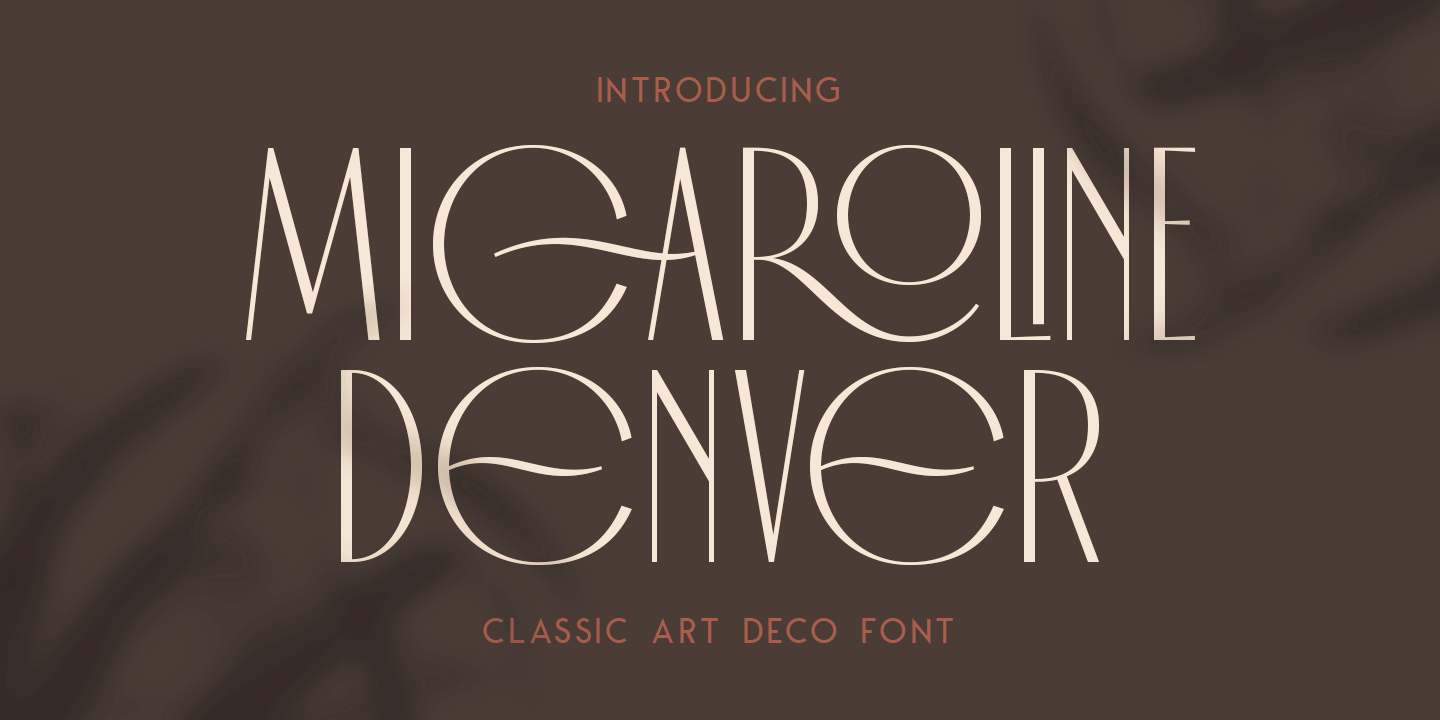
Micaroline Font is perfect for elegant wedding invitations, luxury brand logos, boutique fashion labels, high-end restaurant menus, sophisticated magazine layouts, feminine beauty product packaging, jewelry store branding, upscale event signage, and any design project that requires refined elegance and graceful sophistication.
What makes Micaroline Font so exciting is its exquisite blend of contemporary elegance and timeless feminine grace that creates an instantly recognizable luxury aesthetic. This font embodies sophistication with its flowing, delicate letterforms that feel both modern and classically beautiful. The carefully crafted characters feature graceful curves and refined proportions that evoke luxury and exclusivity, creating a typography solution that elevates any design with effortless elegance and premium appeal.
The Micaroline Font family typically includes regular weight variations with comprehensive character sets featuring uppercase and lowercase letters, numerals, punctuation marks, and elegant ligatures. Some versions may offer additional weights like light or bold variants, along with stylistic alternates and swash characters that provide designers with sophisticated options for creating luxurious, feminine layouts.
Micaroline Font Free Download has become increasingly popular among luxury brand designers, wedding planners, and creative professionals who specialize in high-end, feminine aesthetics. This distinctive typeface performs exceptionally well in both digital and print applications where elegant sophistication and premium quality are essential for connecting with discerning audiences who appreciate refined design.
The font's elegant design makes it particularly effective for luxury fashion campaigns, premium beauty products, wedding industry materials, and upscale hospitality branding that needs to communicate exclusivity and refinement. Its graceful character shapes and excellent legibility ensure professional results across various media formats.
Designers choose Micaroline Font for its ability to instantly convey luxury and feminine elegance while maintaining contemporary relevance and versatility. The font's refined construction works beautifully on everything from delicate stationery to sophisticated brand identities.
Whether you're creating luxury brand materials, elegant wedding designs, premium product packaging, or sophisticated marketing campaigns, Micaroline Font delivers the perfect fusion of feminine grace and modern elegance that creates memorable impressions with timeless sophistication.